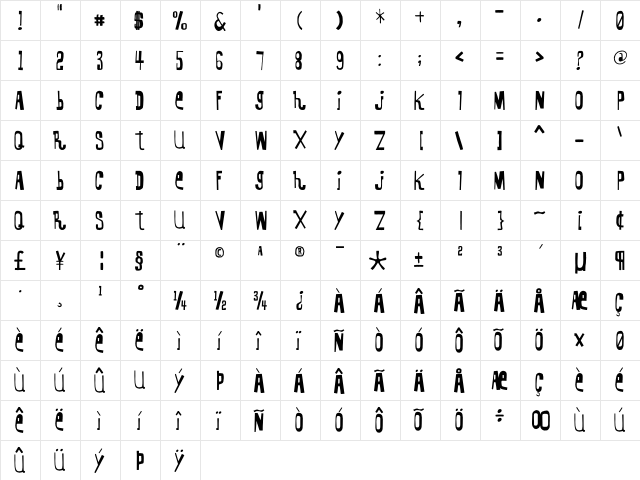
KennelDistrict Thin
Design Context for KennelDistrict Typeface
KennelDistrict is a composed and adaptable typeface that performs quietly and consistently across a wide range of design contexts. Its slender proportions lend an understated elegance to any composition.